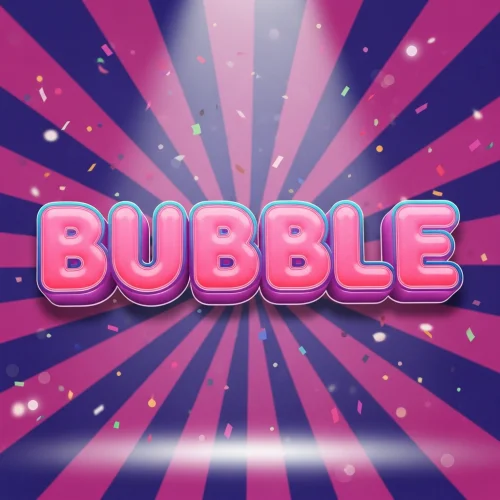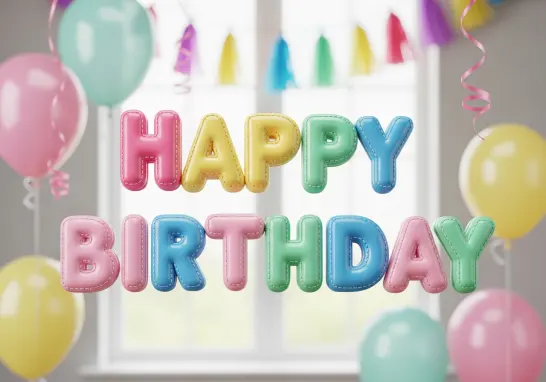
Round. Playful. Memorable.
Design and explore 10 distinct bubble font styles crafted for brand titles, headings, and packaging. Each bubble font option balances soft geometry, characterful curves, and readable forms to give projects a friendly, modern voice.
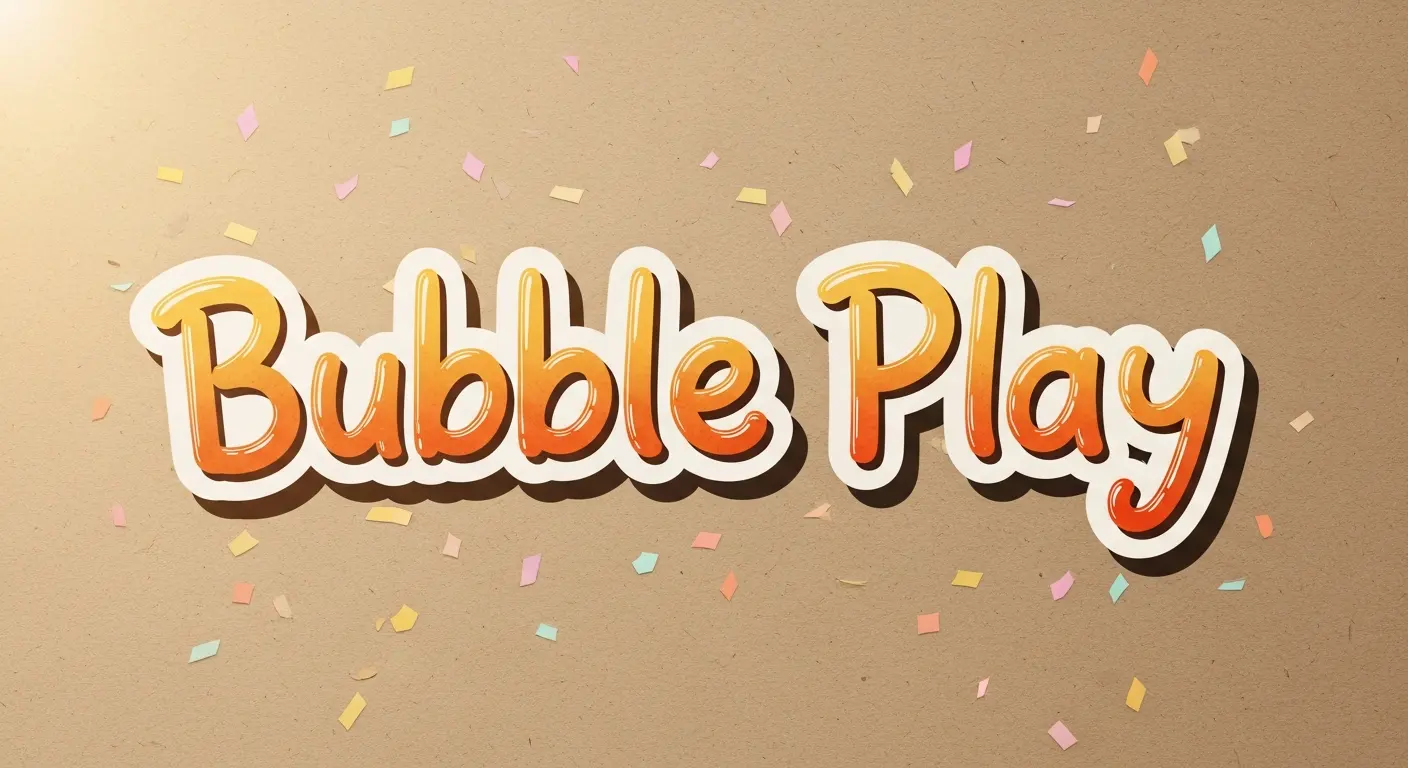
A curated list of 10 bubble font interpretations — from glossy 3D to minimalist outline — designed to fit playful brands, children's products, and modern UI.
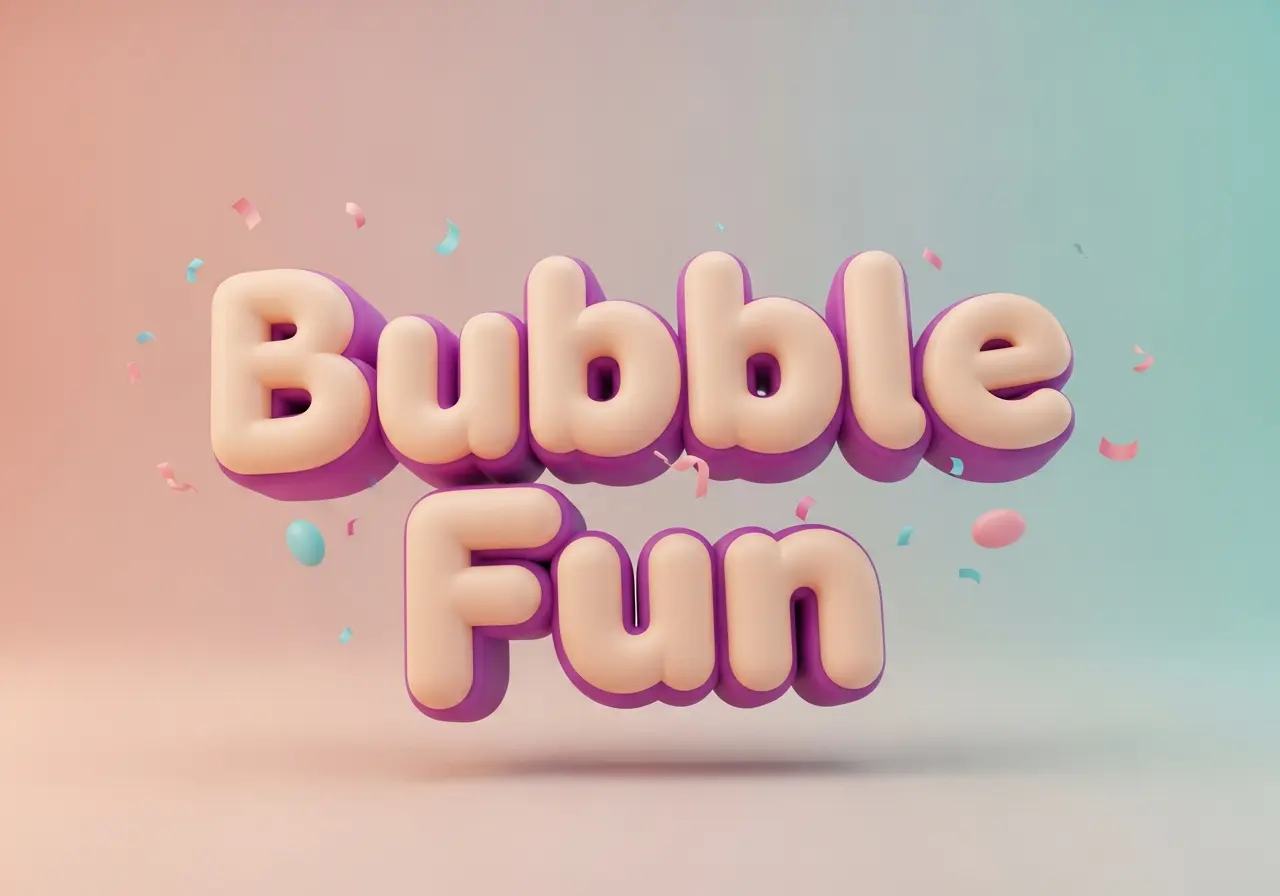
A playful, pillowy bubble font that feels soft and friendly; perfect for youthful, fun branding and approachable headlines.
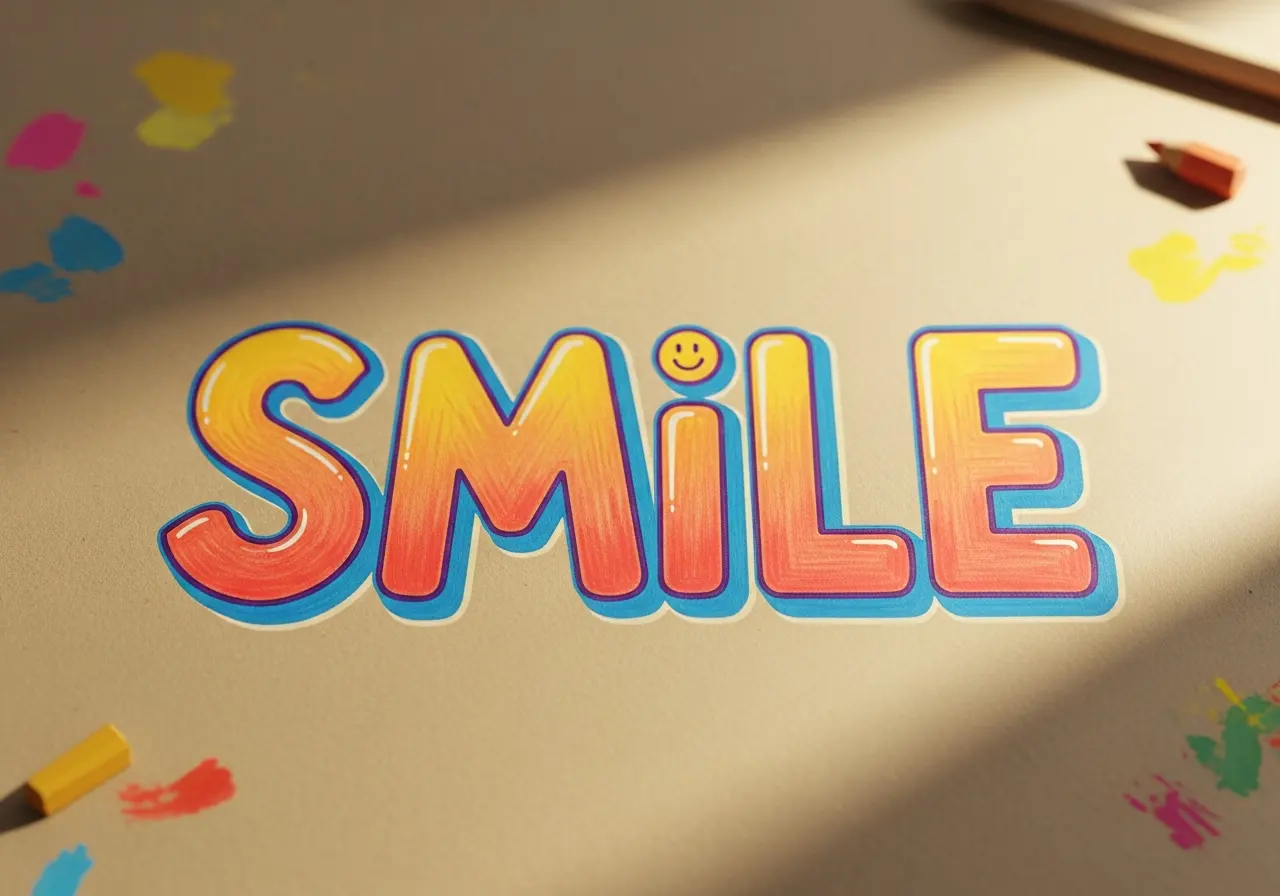
Playful Hand-Bubble is an organic hand-drawn bubble font that feels charming and approachable. This bubble font uses uneven strokes and sketchy outlines to convey friendly authenticity.
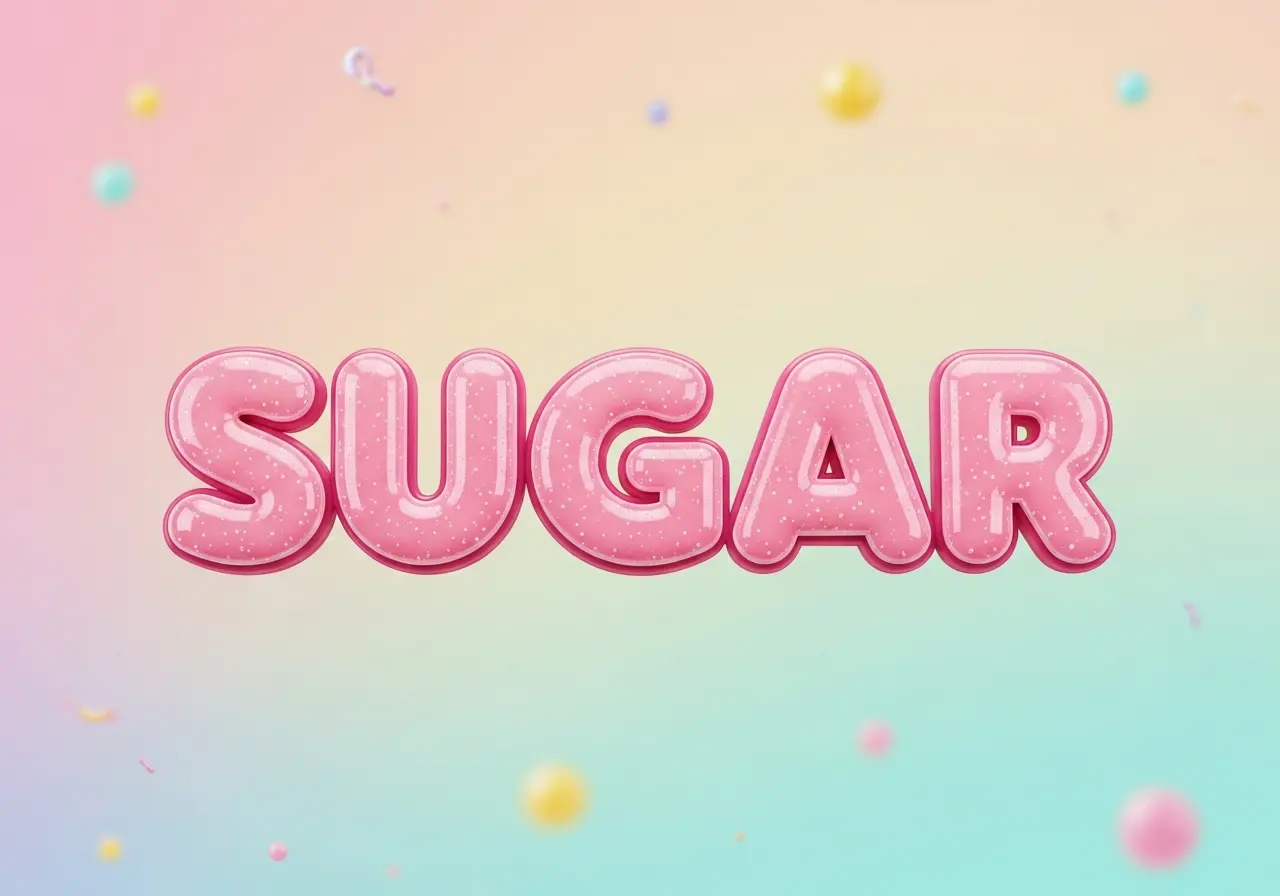
Candy Foam Script is a flowing bubble font with connected, buoyant letters reminiscent of whipped candy. This bubble font adds sweet motion and tactile softness to identities and packaging.
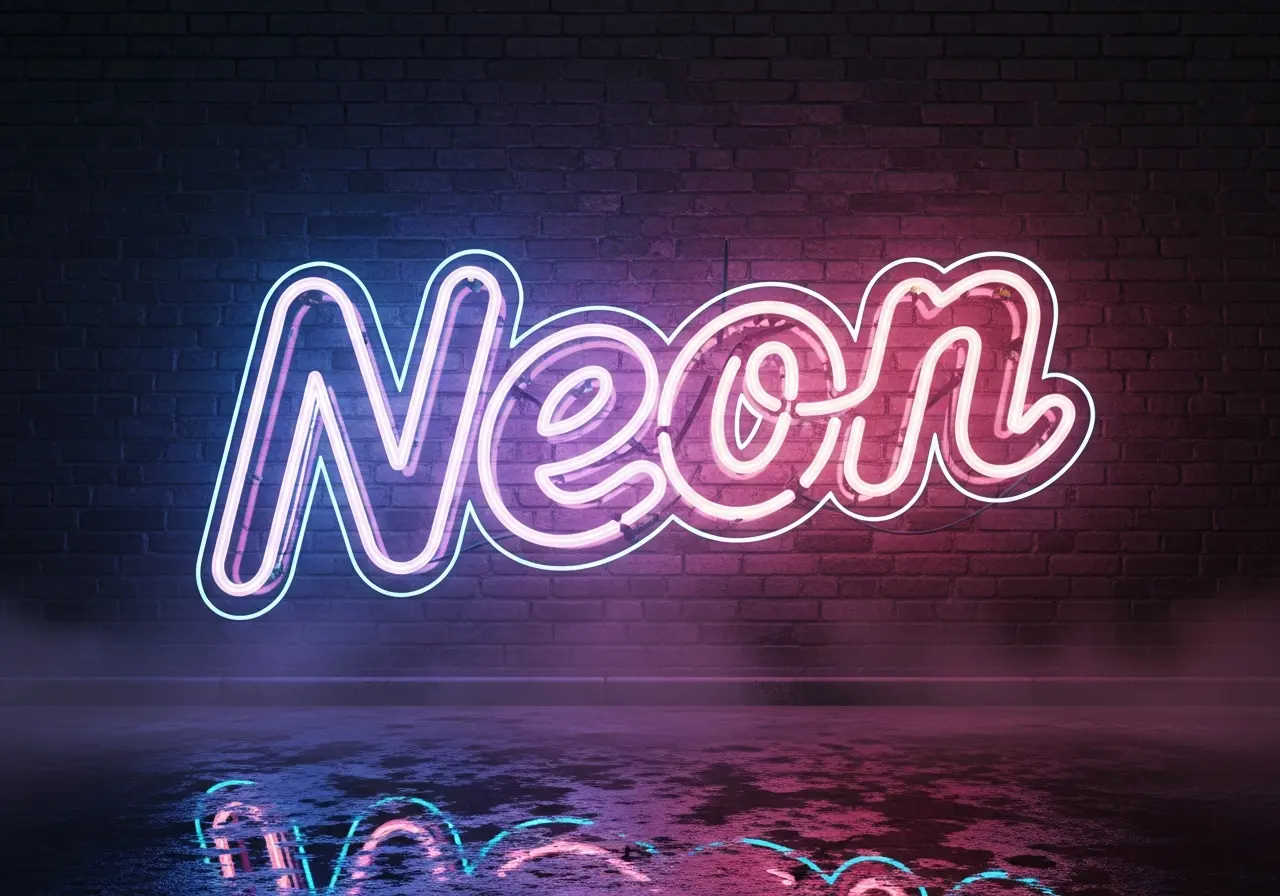
Neon Tube Bubble is a luminous bubble font that mimics glass neon tubing with soft glow. This bubble font creates energetic signage and retro-futuristic headlines with vivid color diffusion.
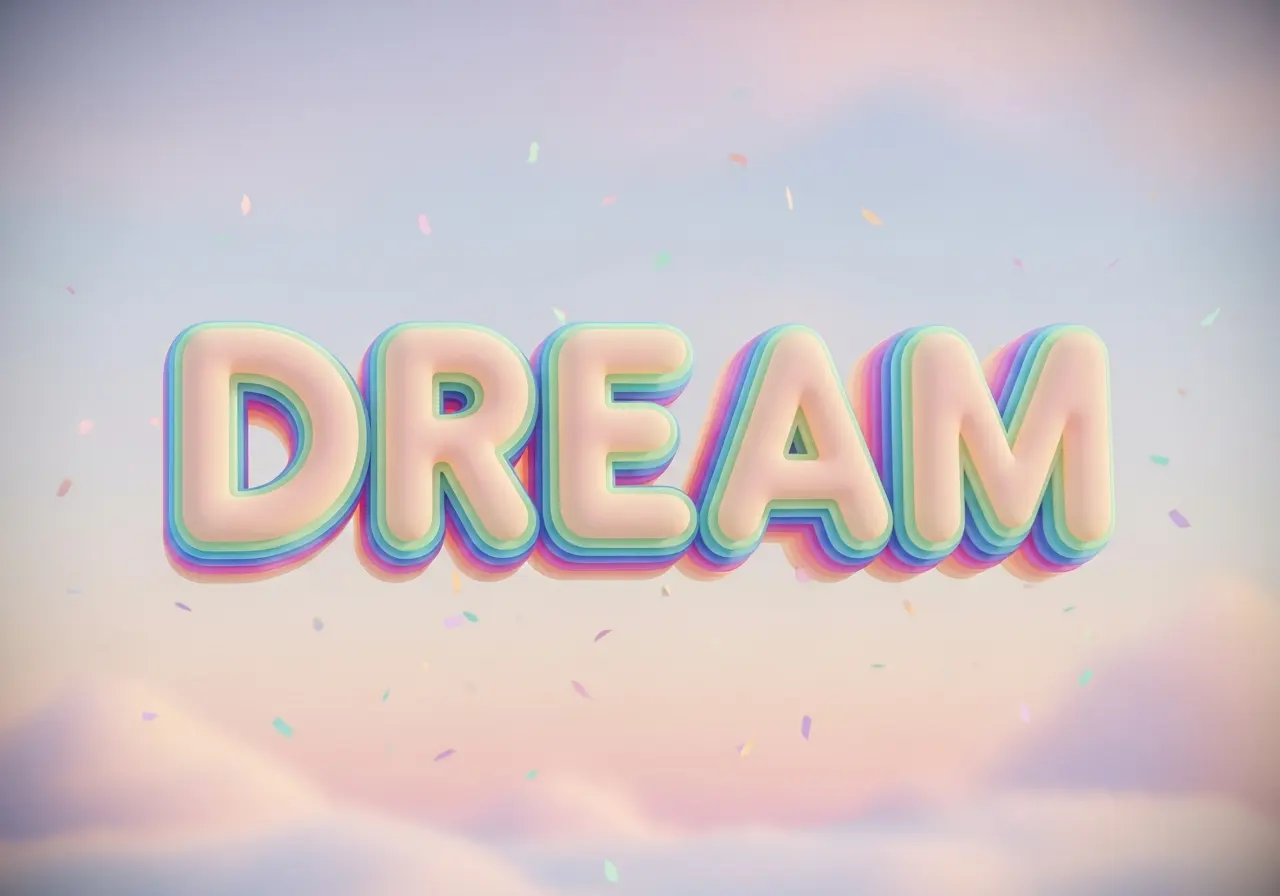
Soft Pastel Layer is a layered bubble font with translucent pastel fills and gentle shadows. This bubble font creates dreamy headings for lifestyle and children's brands.
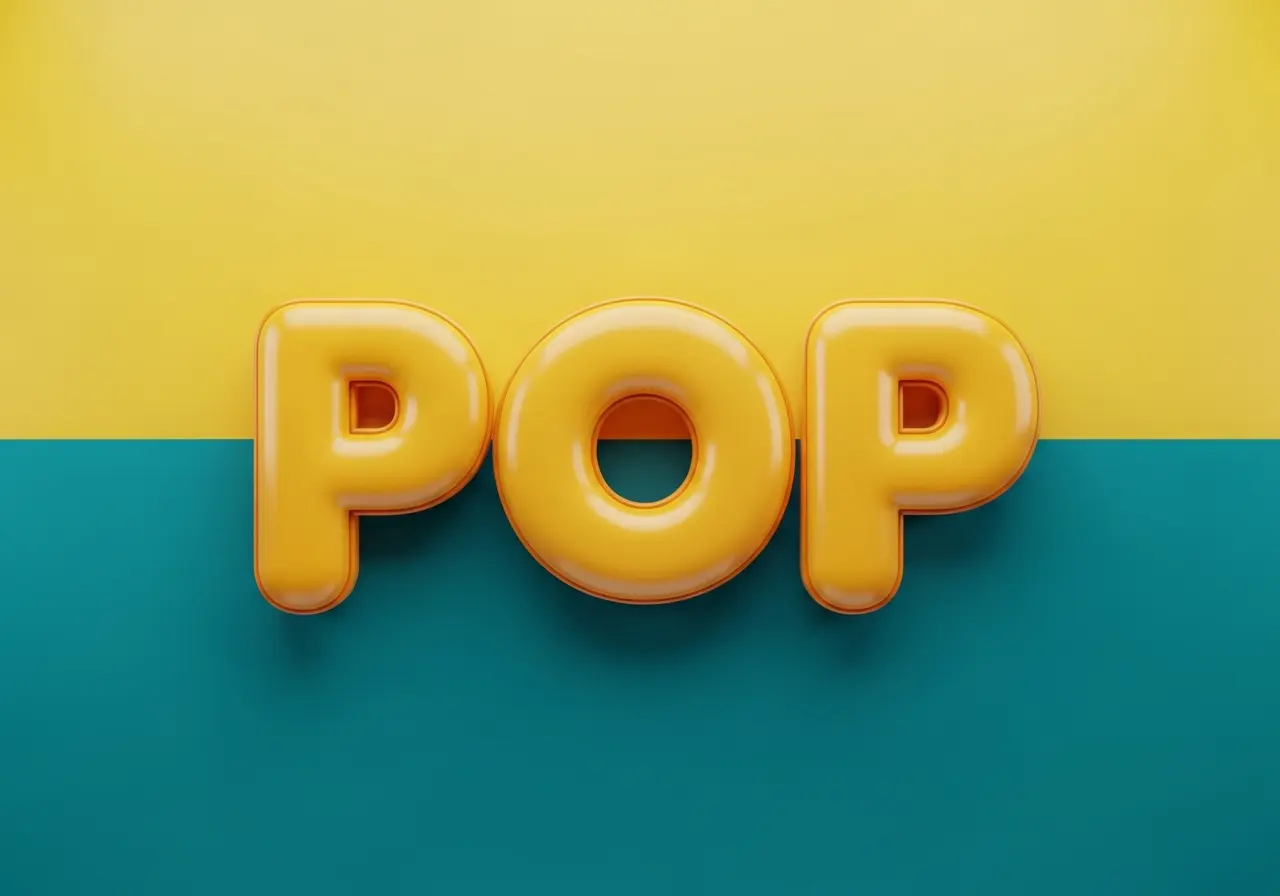
Gloss Outline DuoTone is a bubble font combining a glossy fill with a contrasting outline for dynamic depth. This bubble font enhances logos with color pop and playful contrast.
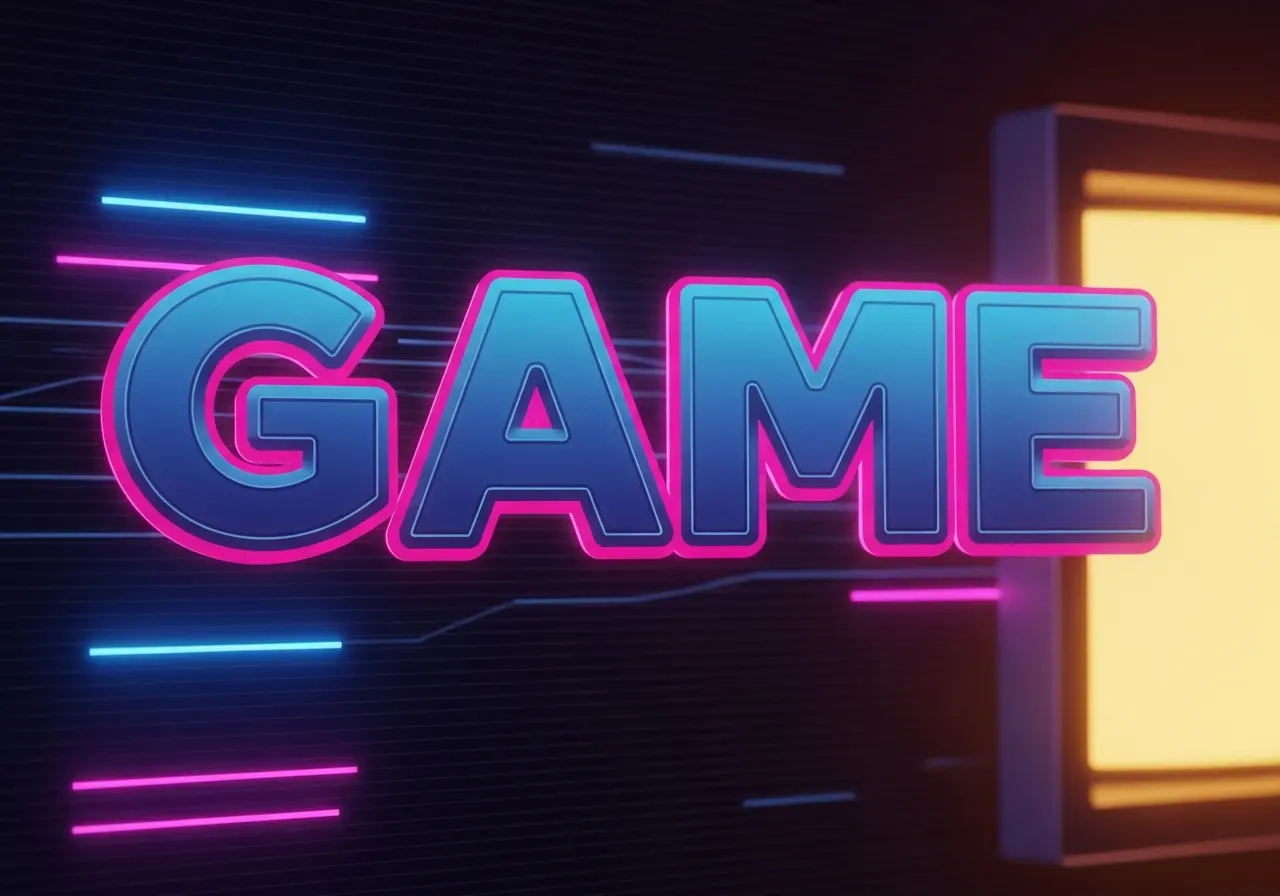
Retro Puffy Pixel mashes bubble shapes with pixel-art edges for nostalgic digital charm. This bubble font blends softness and blocky geometry for game UI and merchandise.